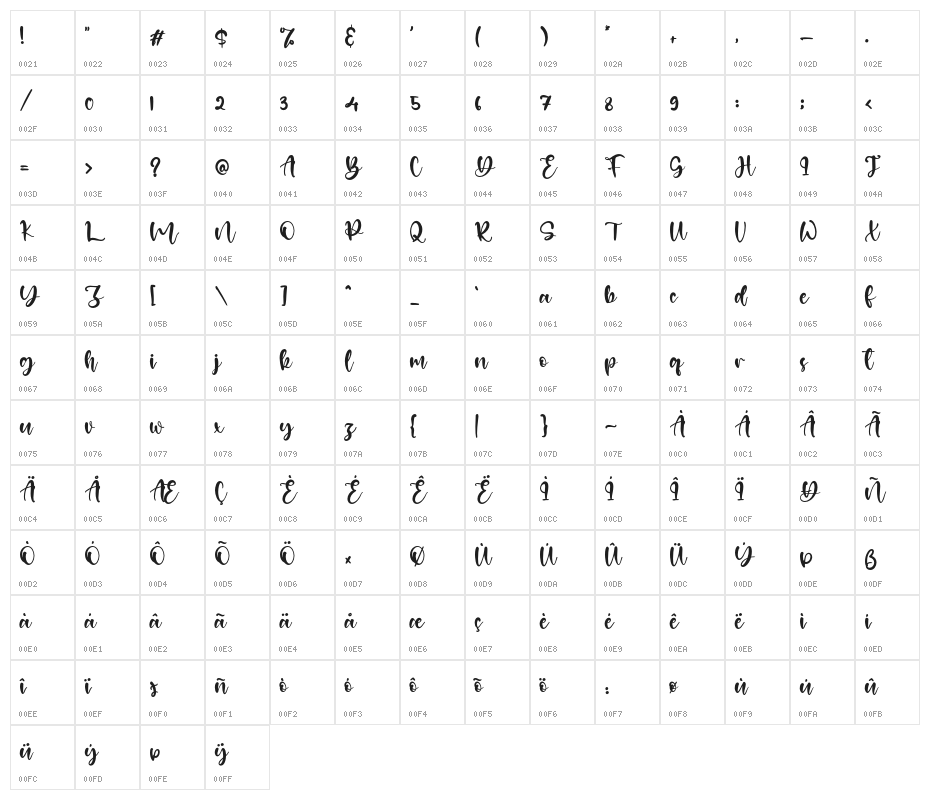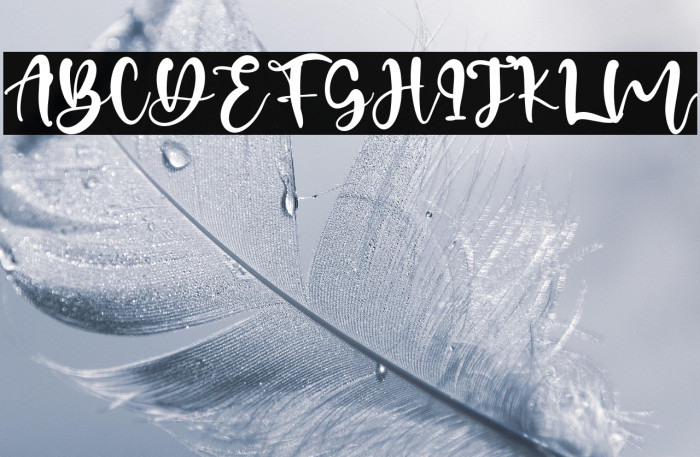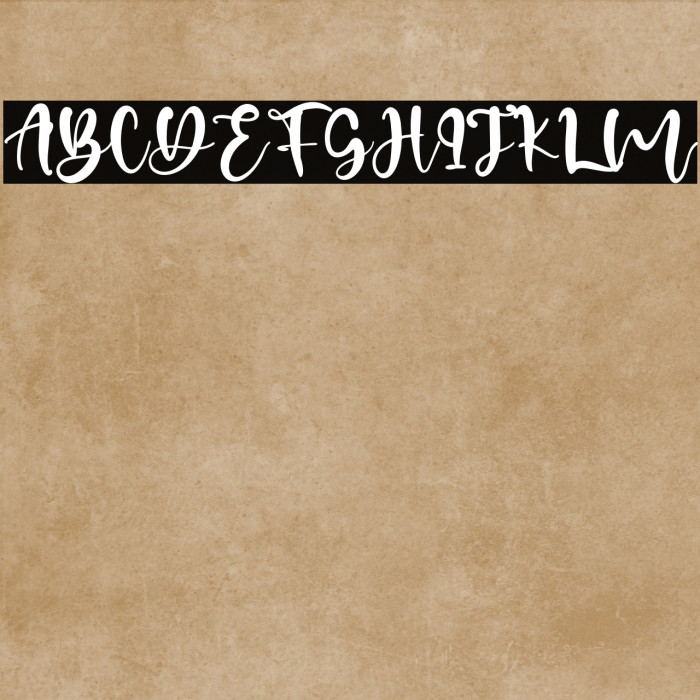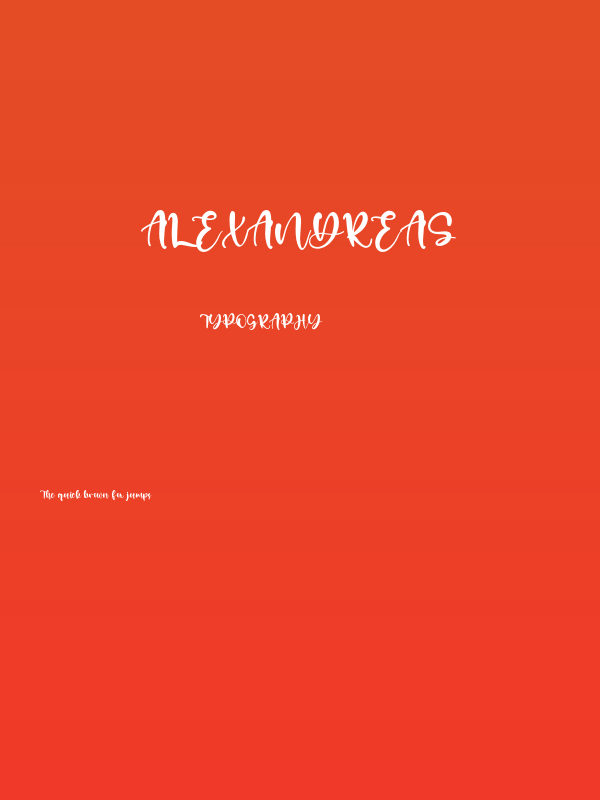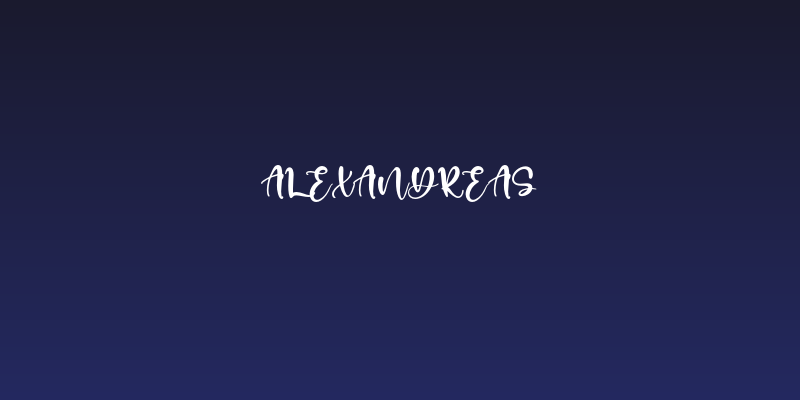
Alexandreas Font
Alexandreas Description
This font features a lively and expressive script style with a handwritten appearance. The characters are bold and fluid, with a playful yet elegant flair. The uppercase letters are slightly more elaborate, with sweeping curves and loops that add a touch of sophistication. The lowercase letters maintain a consistent flow, enhancing readability while retaining the font's artistic charm. Numbers and special characters are designed to match the overall aesthetic, ensuring a cohesive look across all text elements. This font is perfect for projects that require a personal touch or a creative, informal vibe.
Use CaseLogos, Invitations, Greeting Cards
Proposed ProjectsIdeal for wedding invitations, greeting cards, logos, and branding materials that require a personal and artistic touch.